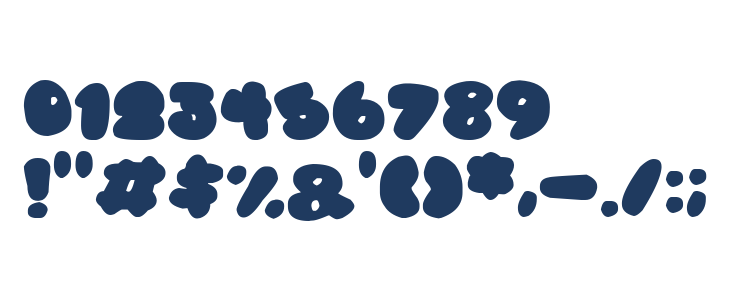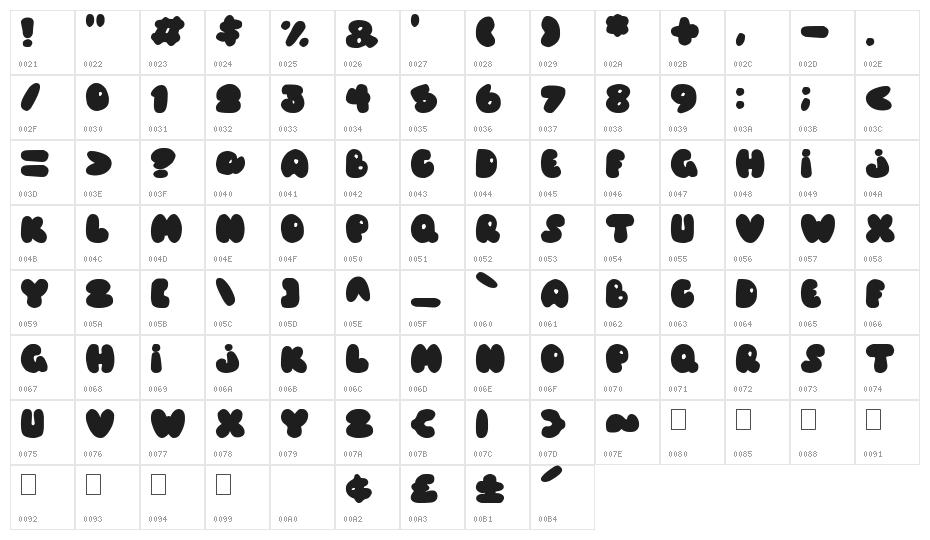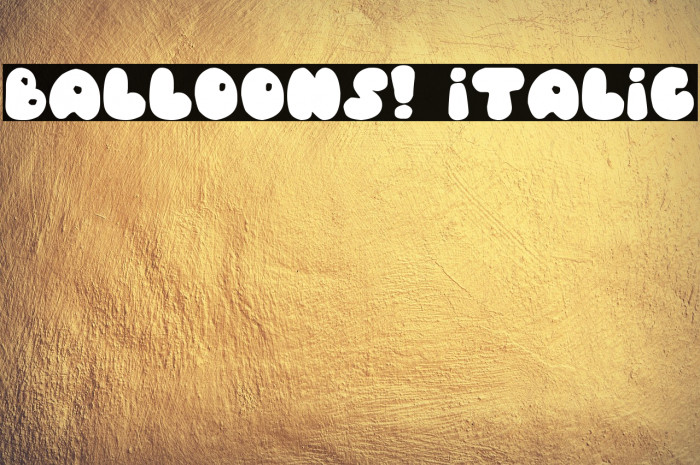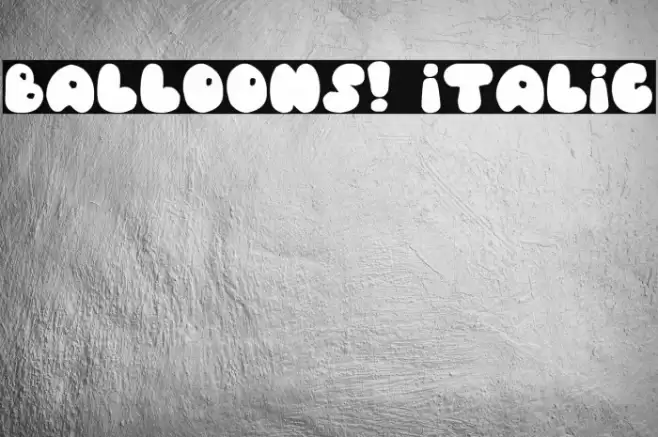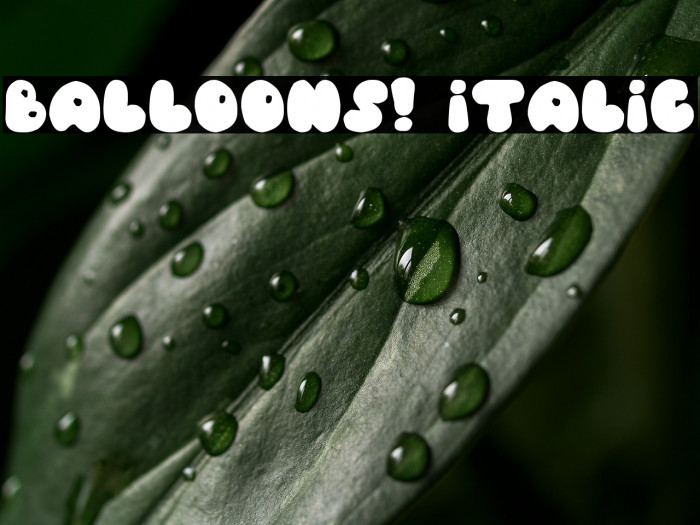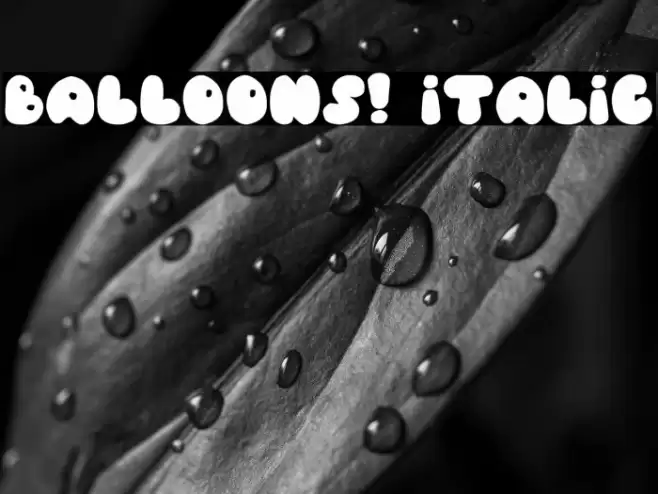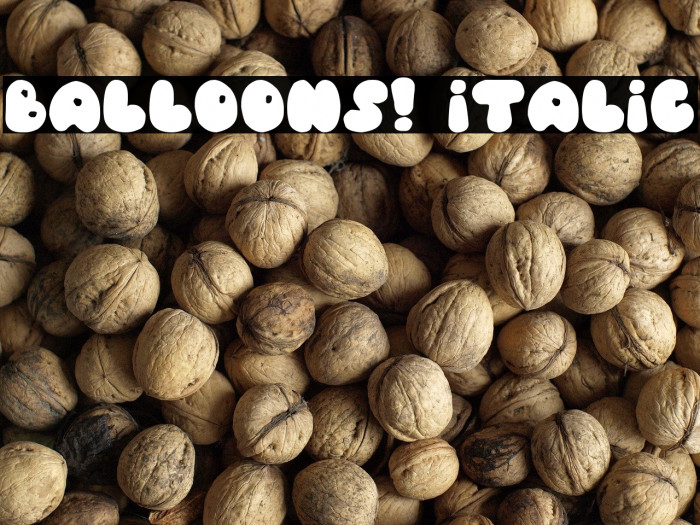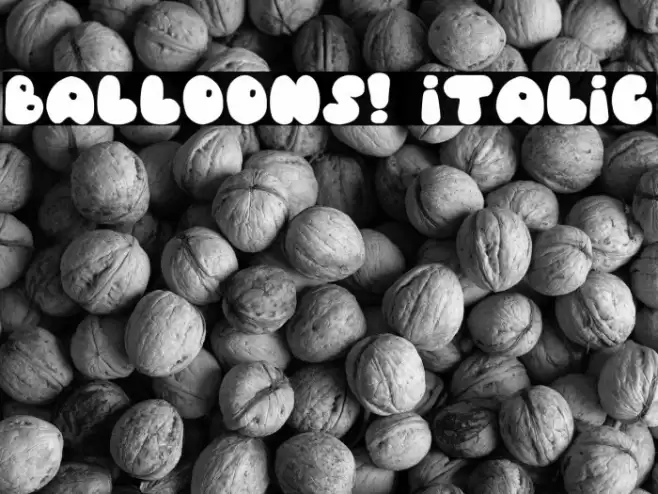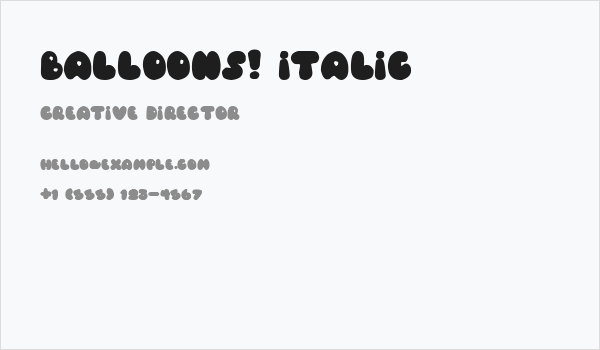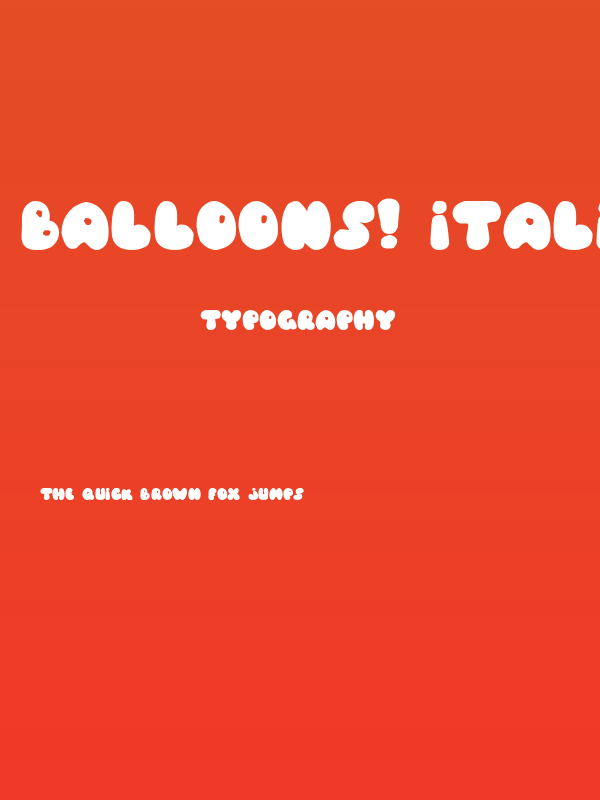
Balloons! Italic Font
Balloons! Italic Description
This playful and bold font features rounded, balloon-like characters that give a sense of fun and whimsy. The letters are uniformly thick, with a smooth, flowing style that mimics the look of inflated balloons. The font maintains a consistent weight throughout, creating a cohesive and visually striking appearance. Its exaggerated curves and soft edges make it ideal for designs that require a touch of lightheartedness. The font is particularly effective in capturing attention due to its unique and memorable style, making it suitable for a variety of creative applications.
| Proposed Projects | Ideal for children's book covers, party invitations, playful branding, and any project needing a fun, whimsical touch. |